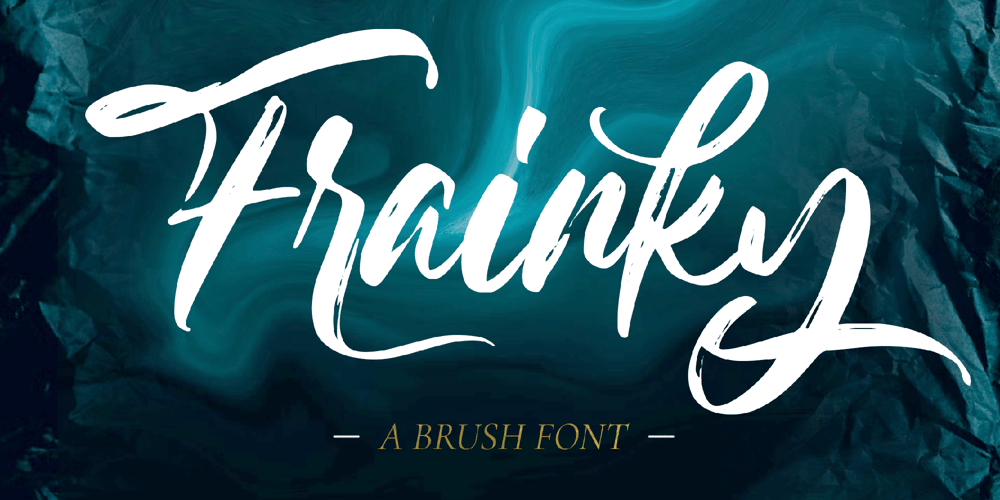
Frainky
Frainky font
Frainky Font Family was designed by Heri Imanudin and published by Krafted. Frainky contains 1 styles and family package options. Looking for a perfect brush stroke that ties your design together?Introducing Frainky – A Brush Font.Trendy and artsy, Frainky makes your brand memorable.It’s an excellent choice for ads, banners, printed cards, packaging, web pages, apps, and anything else your project needs. Give it a shot and see for yourself!What you’ll get: Multilingual & Ligature Support Full sets of Punctuation and Numerals Compatible with: Adobe Suite Microsoft Office Keynote Pages Software Requirements: The fonts that you’ll receive in the pack are widely supported by most software. In order to get the full functionality of the selection of standard ligatures (custom-created letters) in the script font, any software that can read OpenType fonts will work. We hope you enjoy this font and that it makes your branding sparkle! Feel free to reach out to us if you’d like more information or if you have any concerns.